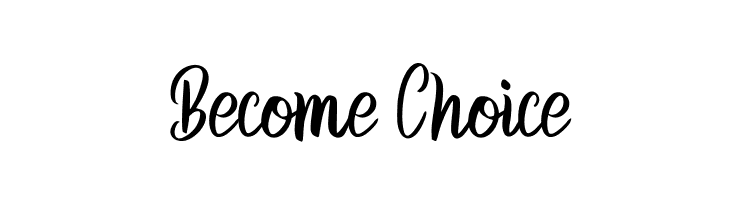
A playful, hand-drawn font with bold, rounded characters and a whimsical style.
A playful, bold font with rounded, hand-drawn strokes.
A bold, expressive handwritten-style font with elongated, slanted characters.
A bold, expressive script font with playful curves and dynamic flow.
A playful and elegant script font with a handwritten style.
A playful and elegant script font with flowing, interconnected letters.